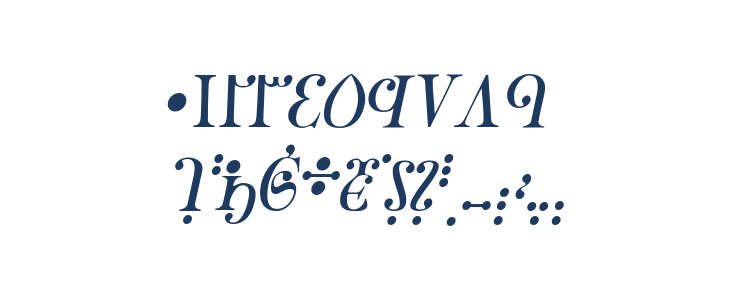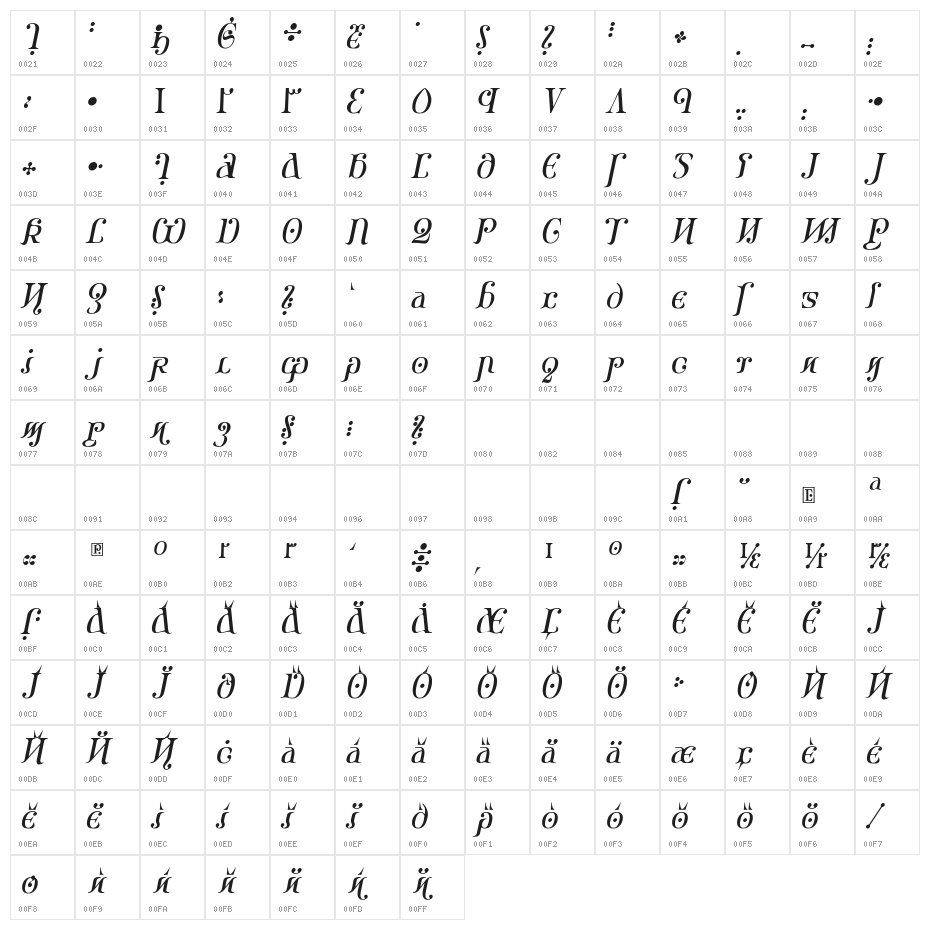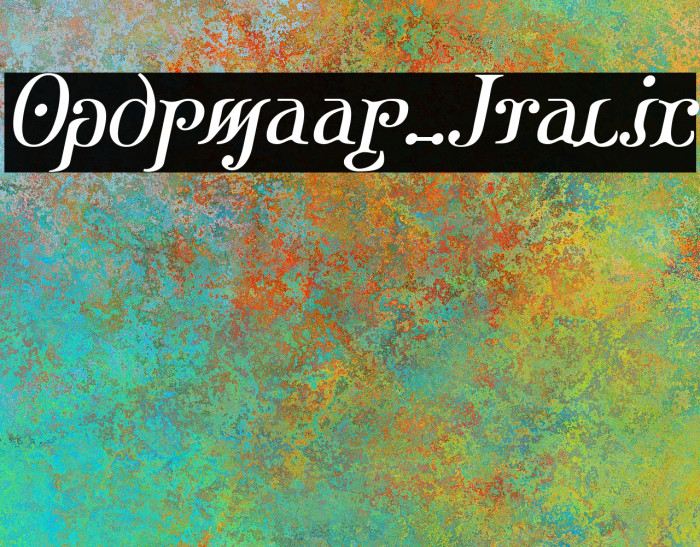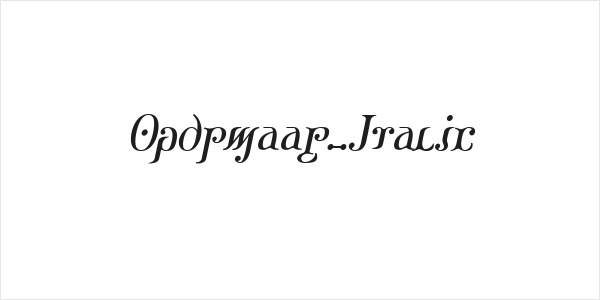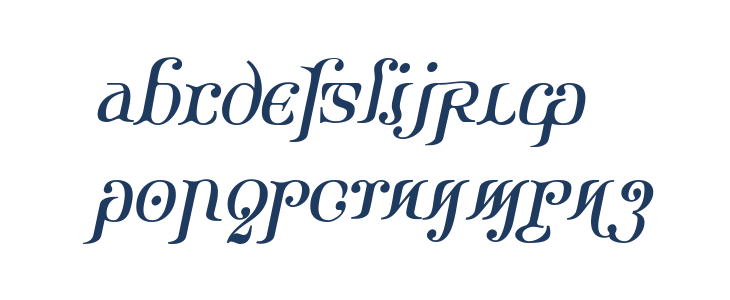
Ondrwaax-Italic Font
Ondrwaax-Italic Description
This font features a unique and artistic style with a distinct italic slant, characterized by its flowing and elegant curves. The letters have a decorative flair, with some characters incorporating additional loops and swirls that add to its ornate appearance. The uppercase and lowercase letters maintain a consistent design, while the numbers and special characters complement the overall aesthetic. The font's intricate details and stylish presentation make it stand out, offering a sophisticated and creative look.
| Use Case | Logos, Invitations, Artistic Posters |
| Proposed Projects | Ideal for creative projects such as invitations, logos, branding, and artistic posters where a touch of elegance and uniqueness is desired. |